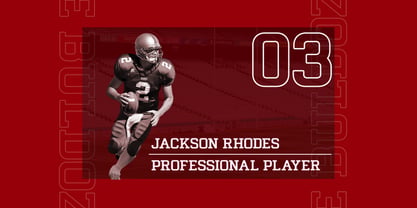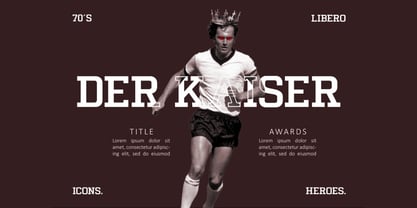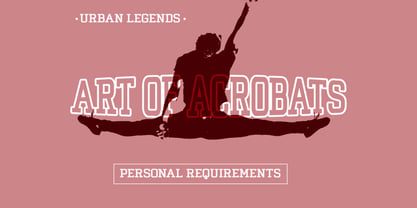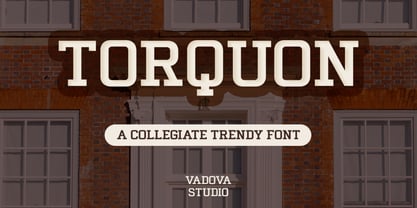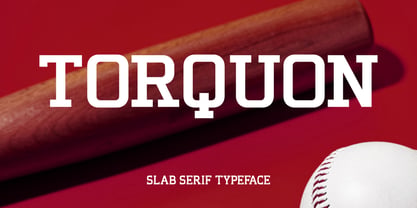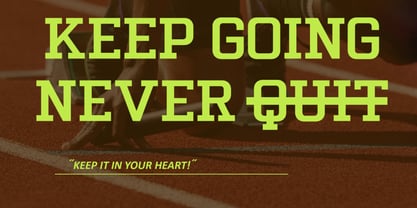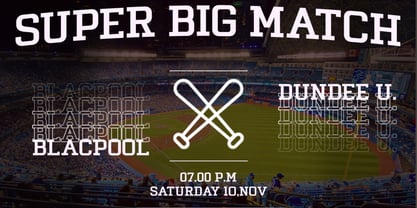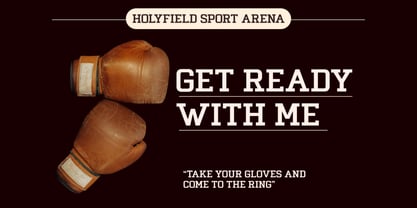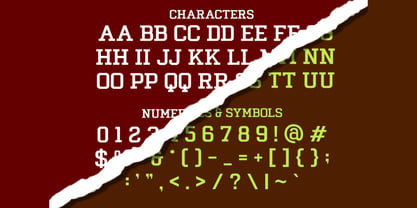
Torquon
Torquon is a confident slab serif font designed for maximum visual punch. Inspired by classic baseball branding and bold stadium typography, Torquon blends retro athletic energy with modern clarity. Its squared serifs and sturdy build give it a sharp, structured look perfect for high-impact headlines, sports branding, and merchandise. Whether you’re designing for the field, the arena, or the street, Torquon delivers timeless strength and a competitive spirit. Torquon Suitable for team logos, matchday posters, gym branding, player cards, vintage sports ads and typographic quotes. Its tone fits baseball, football, boxing, or urban fitness themes—anything where boldness and determination meet design.